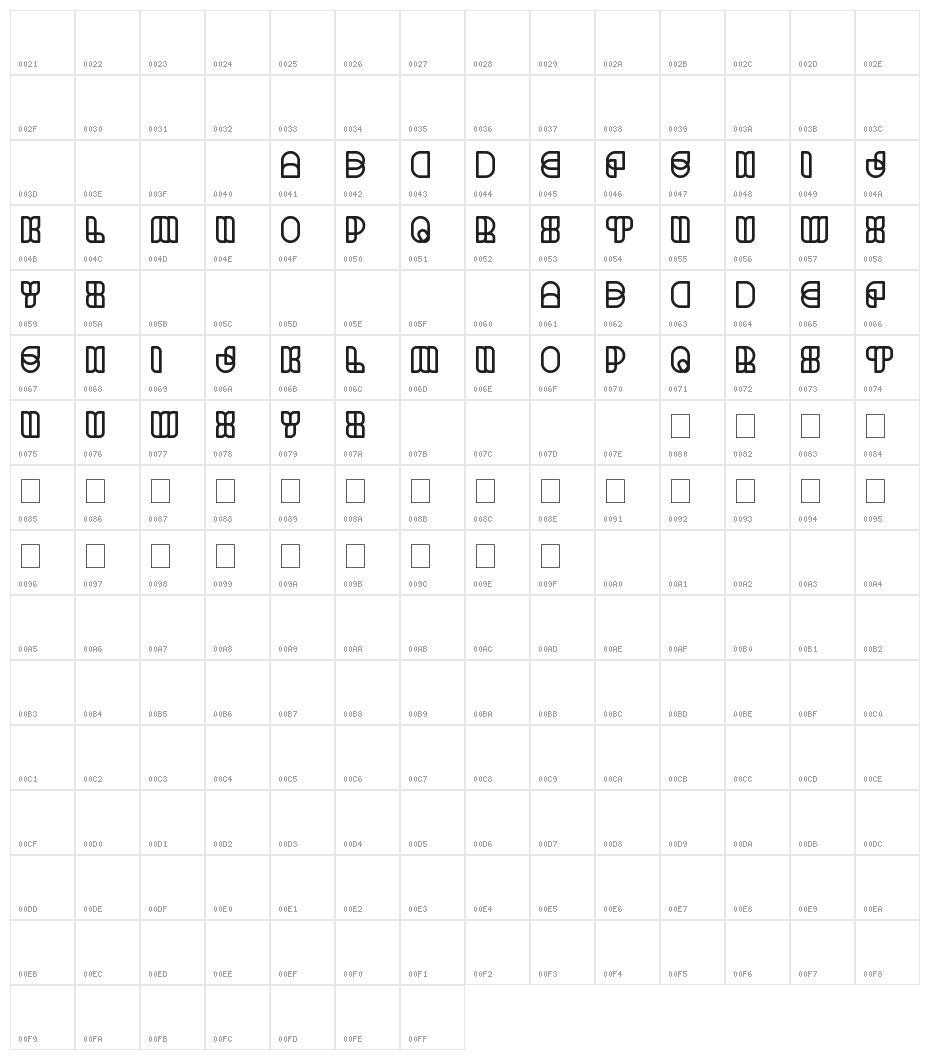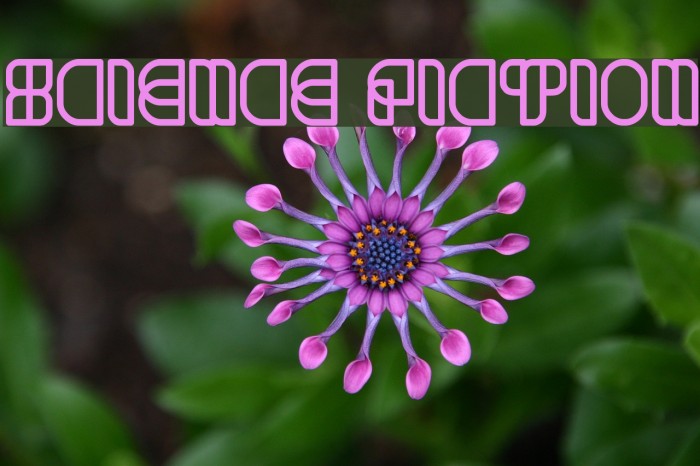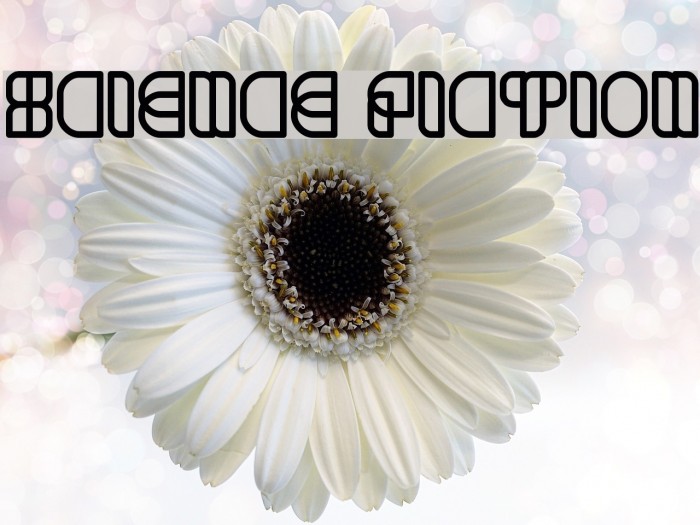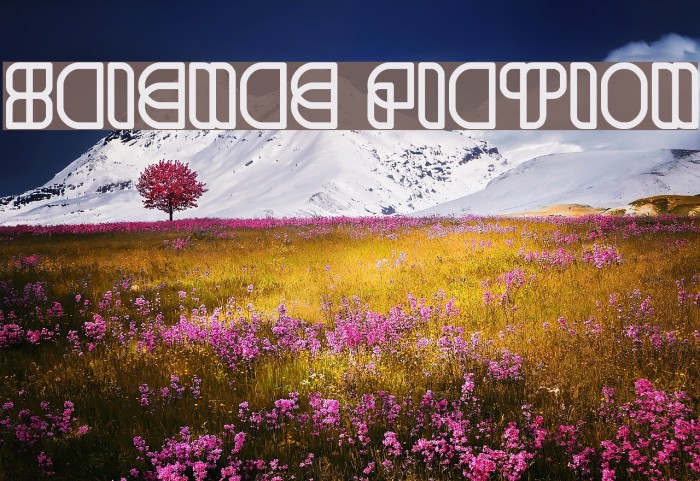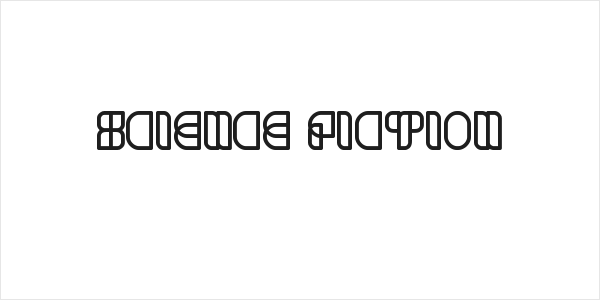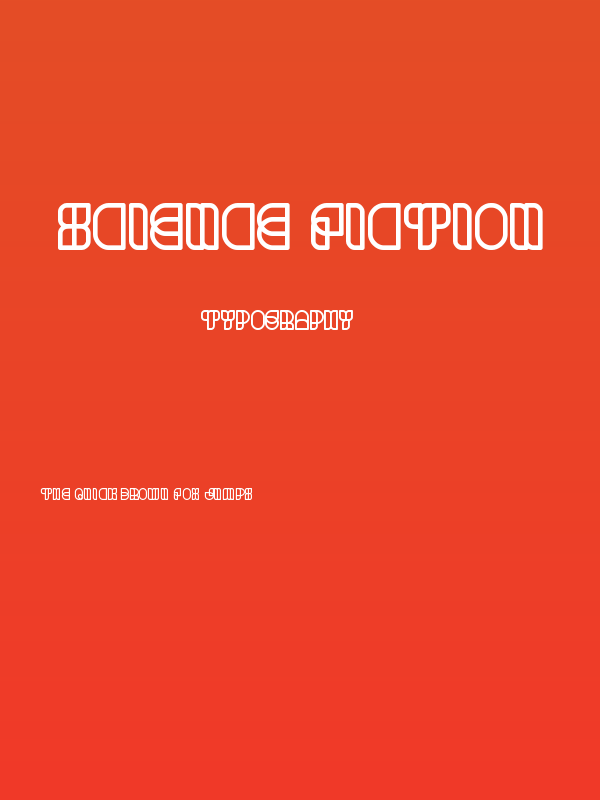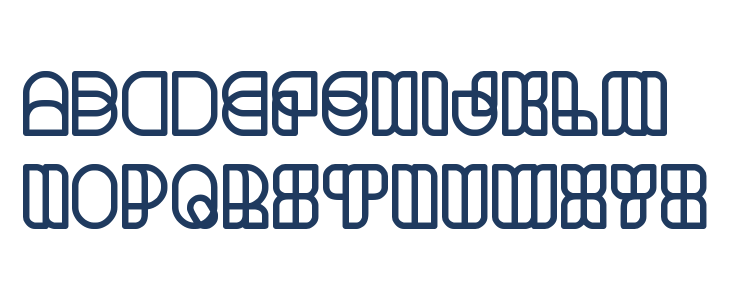
science fiction Font
science fiction Description
This font features a futuristic and geometric design, characterized by its bold, interconnected letterforms. The characters are outlined with a consistent stroke width, creating a hollow effect that emphasizes the negative space within each letter. The style is reminiscent of science fiction aesthetics, with a modern twist that combines both angular and rounded elements. The uppercase letters are particularly striking, with their unique shapes and symmetry, making them ideal for attention-grabbing headlines or titles. The font's design is clean and structured, yet it maintains a playful and innovative edge.
| Proposed Projects | Ideal for science fiction book covers, futuristic branding, technology-related posters, and video game interfaces. |